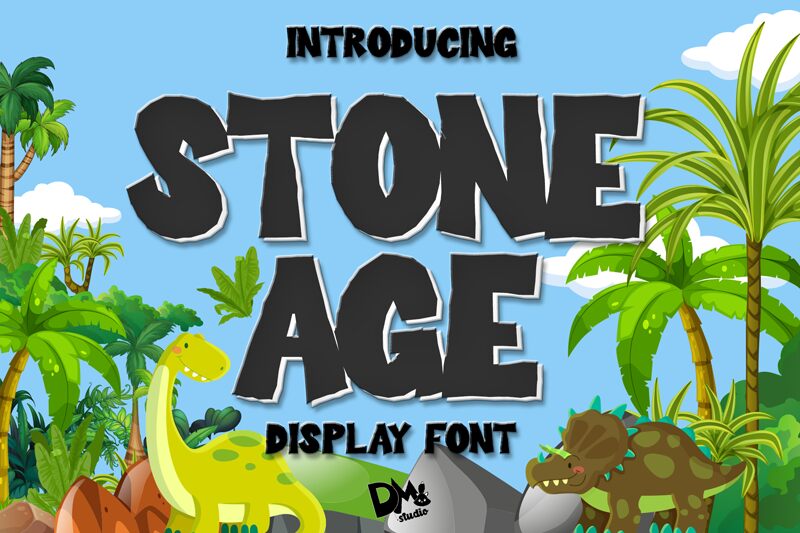
Stone Age is a captivating display font, designed by Dm Letter Studio - Dimas Prasetyo. With its extra-bold weight and appealing cartoon style, this font brings a playful touch to any project it graces.
Its unique design makes it perfect for children's books, animated films, video games, and comic strips. Whether you're creating whimsical illustrations or eye-catching logos, Stone Age will add a delightful charm that captures the imagination of both young and old alike.
Let your creativity run wild with this adventurous typeface!